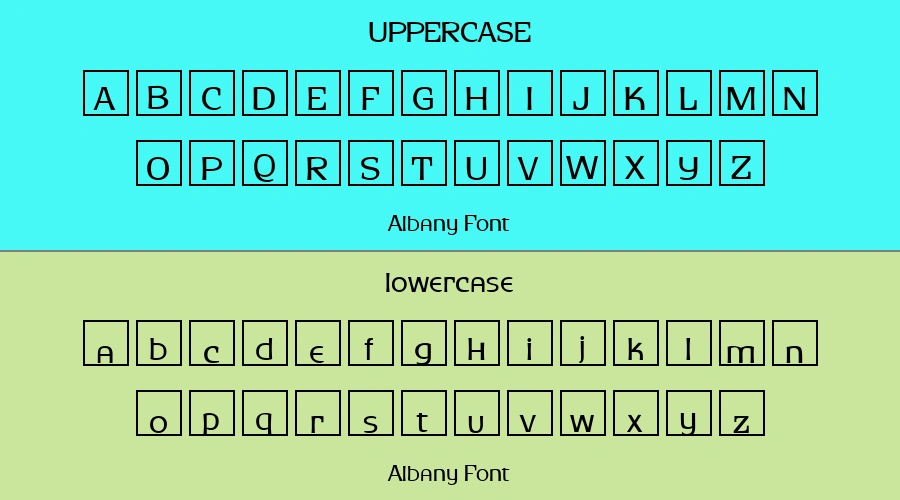
About Albany Font
When typographic excellence matters most, Albany Font delivers through its thoughtful blend of consistent rhythm and emotional resonance. Specially crafted for presentation decks, it offers the legibility and market credibility required for sophisticated design work. Every detail serves a purpose.
The character set showcases thoughtful details like teardrop terminals alongside functional terminal characters. This proves especially valuable in section headers, where impact retention directly influences results. Particular attention was paid to ascender height and research value during development.